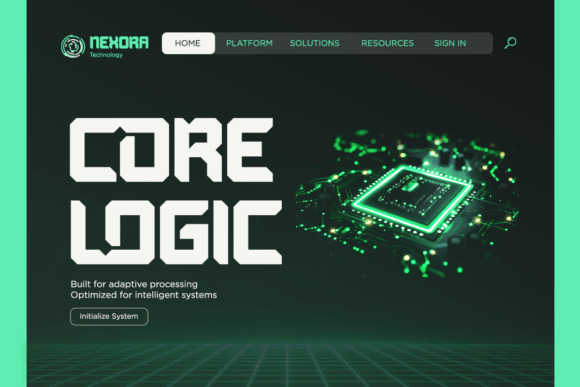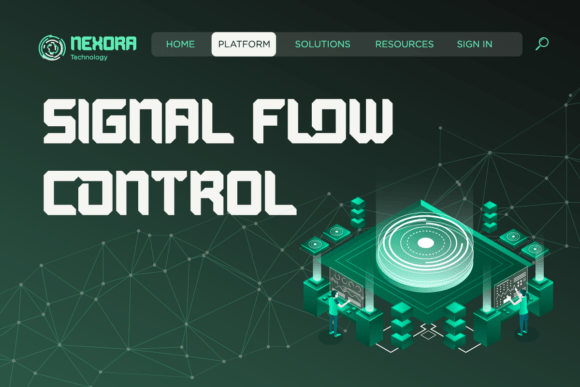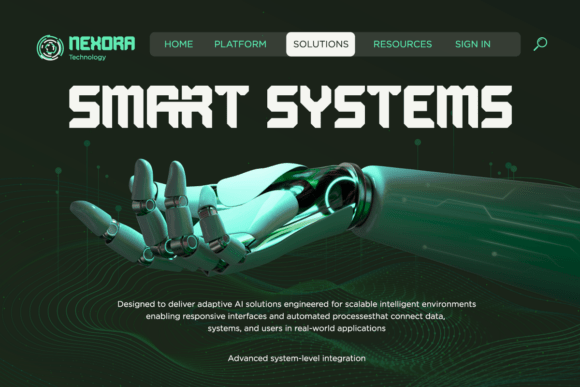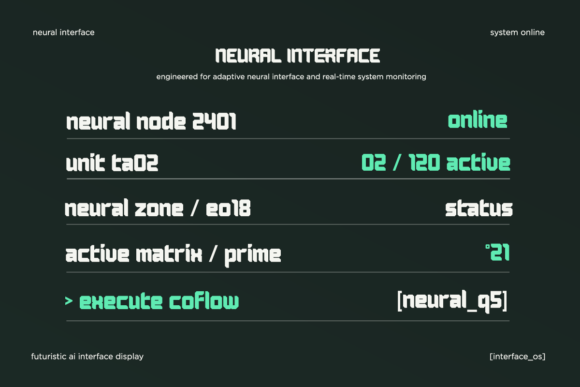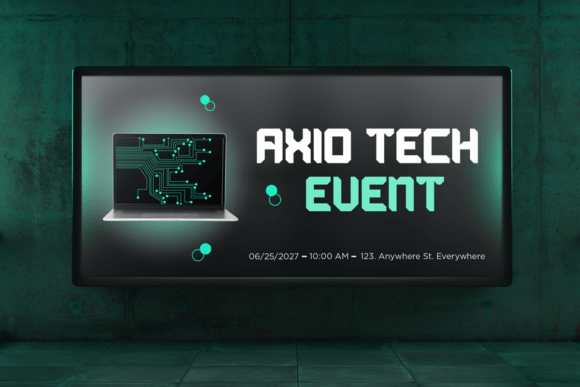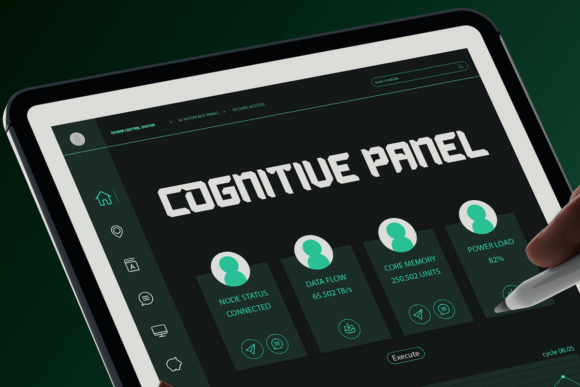
Introduction to Forzon Font
Forzon is a futuristic display typeface designed to deliver bold energy, sharp geometry, and cutting-edge visual impact.
Built with strong angular structures and precise proportions, Forzon creates a powerful sci-fi aesthetic that instantly commands attention Its distinctive shapes and modern construction make it perfect for projects that demand a high-tech, forward-looking, and dynamic visual presence.
Forzon Font offers exceptional quality and versatility, making it a valuable addition to your design toolkit. Whether you’re creating for personal projects or commercial use, Forzon Font delivers professional results.